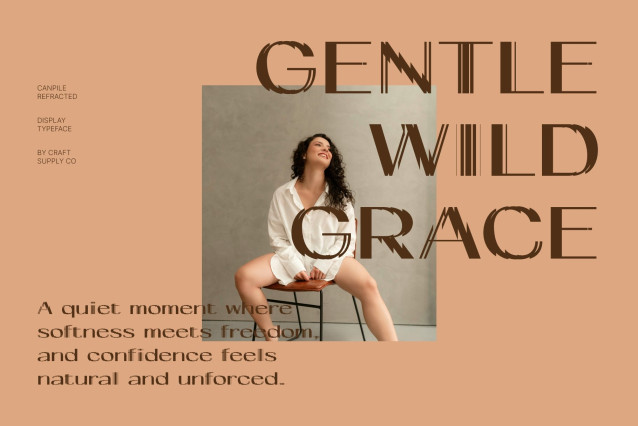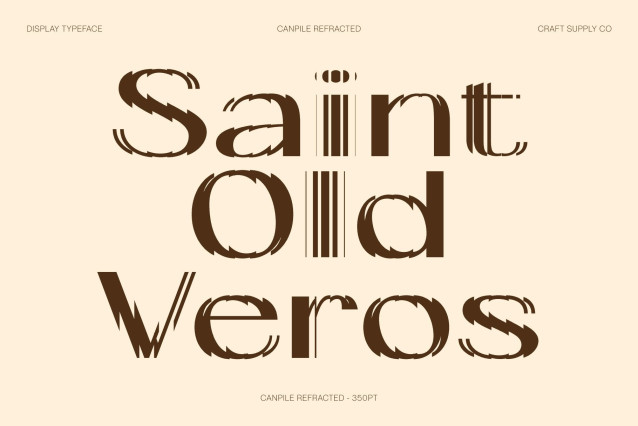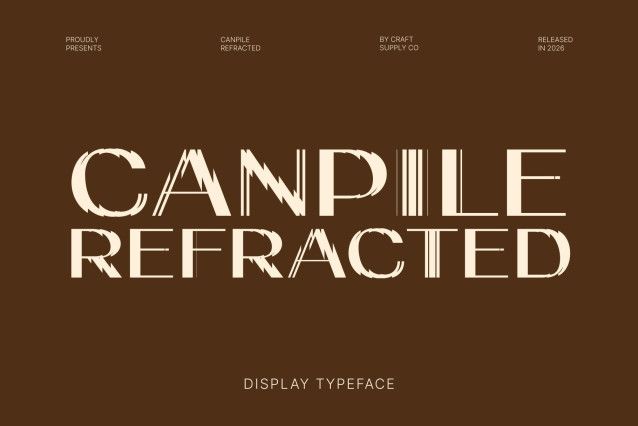
Canpile Refracted Font
Canpile Refracted – Modern Sans Serif Font: Stylish Simplicity with Futuristic Distortion
Stylish Simplicity with Contemporary Structure
This is a modern sans serif typeface that blends clean simplicity with refined stylistic confidence. Built with sleek proportions and balanced geometry, it delivers a calm yet powerful visual presence. Its minimalist construction ensures clarity and readability, making it a reliable choice for editorial and professional design work that demands both style and function.
Refracted Visual Effects for Bold Expression
The defining character of this font lies in its refracted distortion treatment. Subtle geometric cuts and fragmented light-like slices run through each letterform, creating a dynamic visual rhythm. This effect introduces a futuristic edge while maintaining the font’s structured elegance, allowing designers to achieve a perfect balance between professionalism and experimental aesthetics.